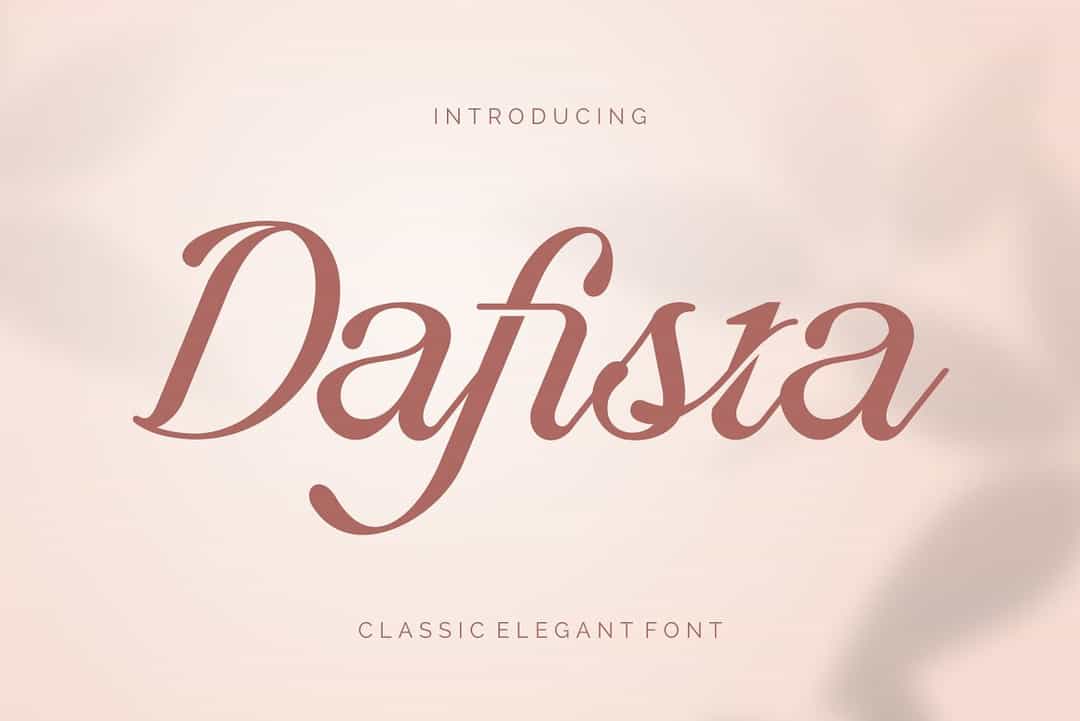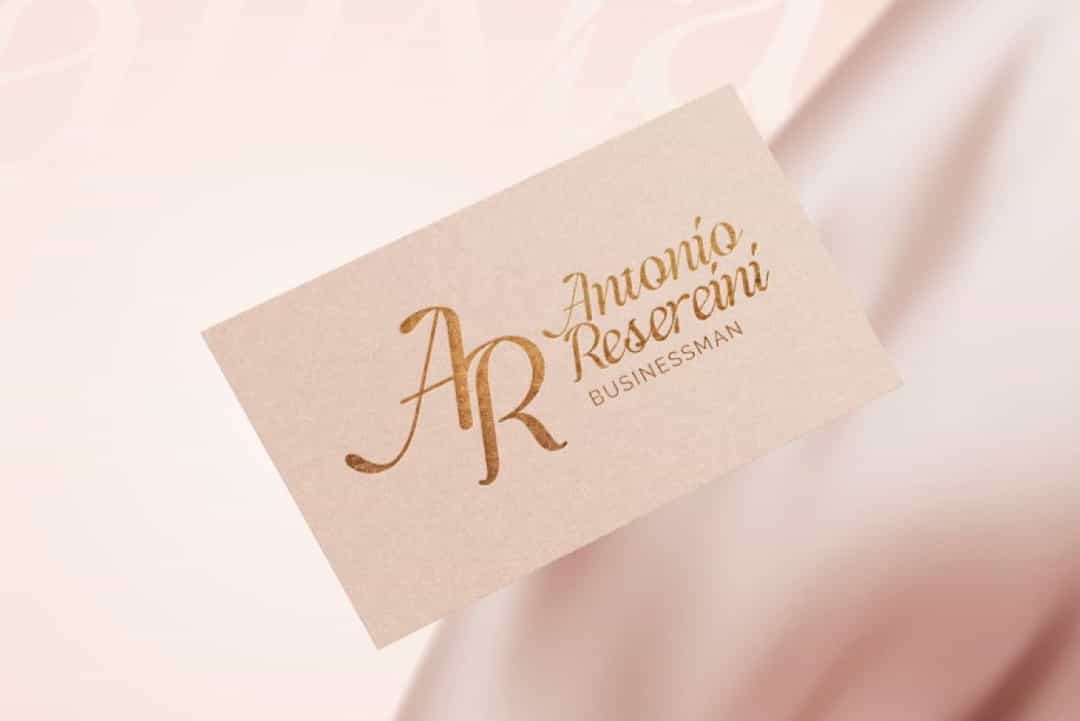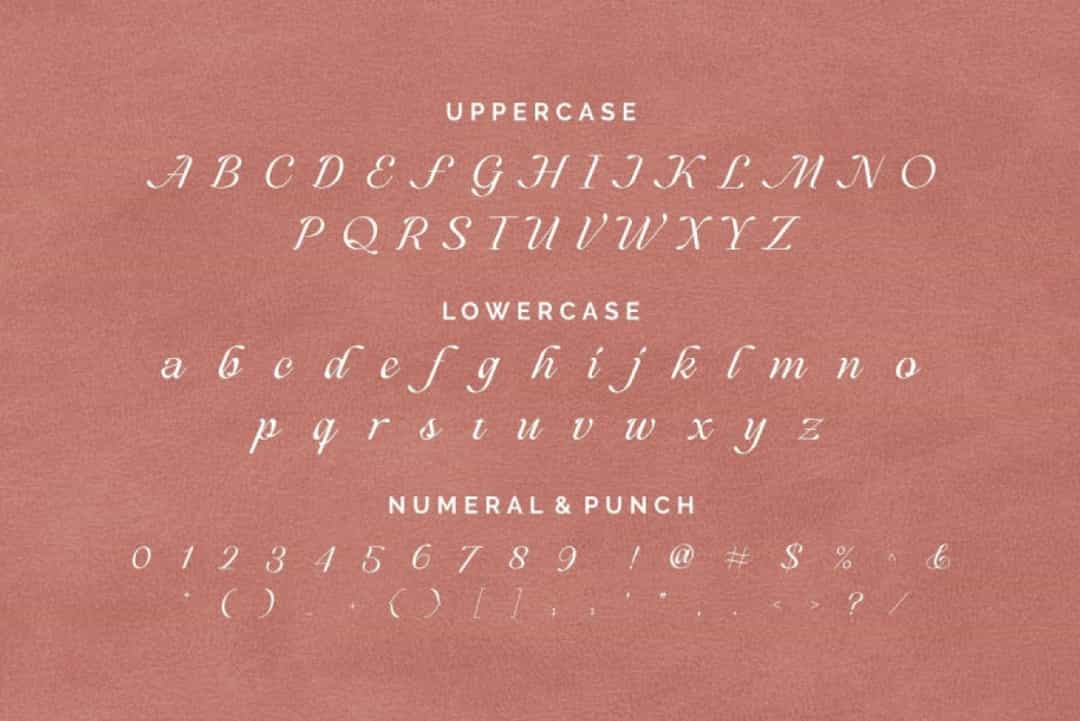
Dafistais an elegant classic featuring a distinct ligatue. Based on our experiences as graphic designers for numerous businesses and organizations, we are often asked to design logos with distinctive styles yet must still remain elegant in appearance.